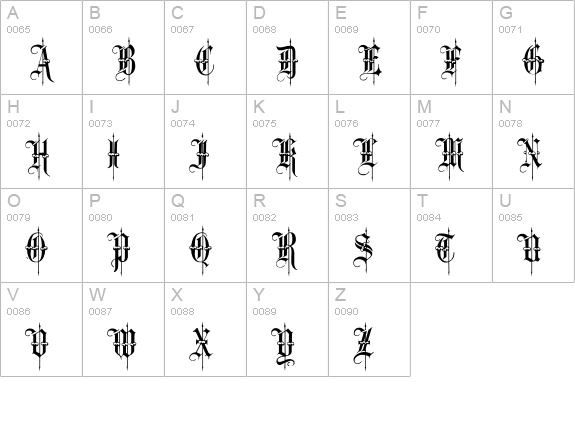
Minster No 4 Font Details
Minster No 4 is a stunning and versatile font that exudes elegance and sophistication. With its classic yet modern design, this typeface is perfect for a wide range of projects, from branding to editorial design. The clean lines and distinct letterforms of Minster No 4 make it a timeless choice for any creative endeavor. One of the best aspects of Minster No 4 is that it is available for free download at FontsMarket.com. This means that you can easily access this high-quality font without any cost, making it a valuable addition to your design toolkit. Whether you are a professional designer or a hobbyist, Minster No 4 offers a level of refinement and style that will elevate your work to new heights. Download Minster No 4 today from FontsMarket.com and unleash its beauty and versatility in your projects. Experience the freedom and creativity that comes with using this exquisite font, and see how it can transform your designs with its effortless charm and sophistication.